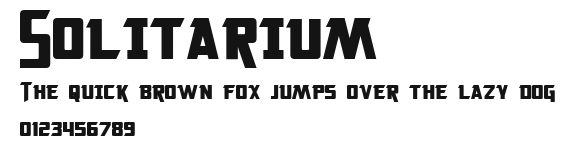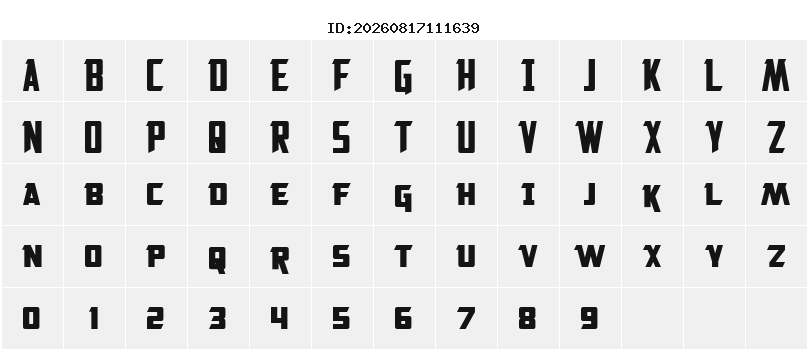
• Font Name: Solitarium
• Designer: Neale Davidson
About Solitarium.ttf
Solitarium.ttf is a modern, elegant sans-serif font designed for ultimate readability and visual harmony. Perfect for branding, headlines, web design, and print materials.